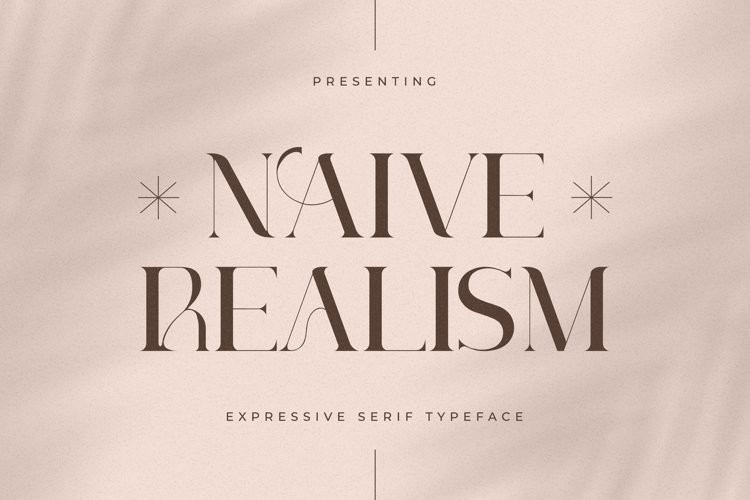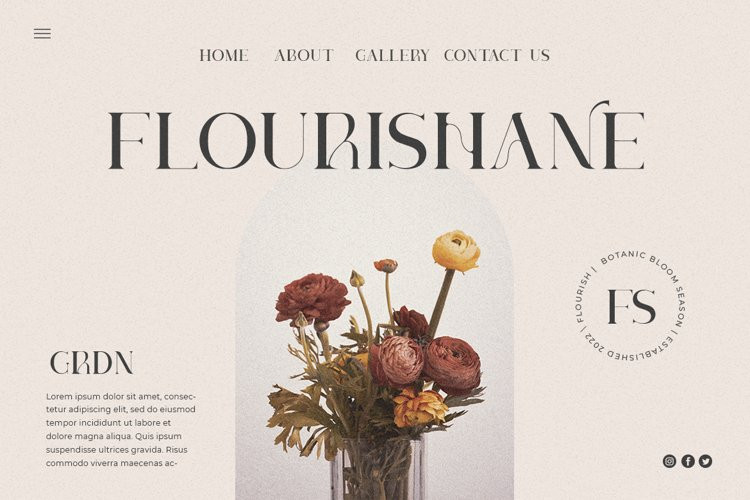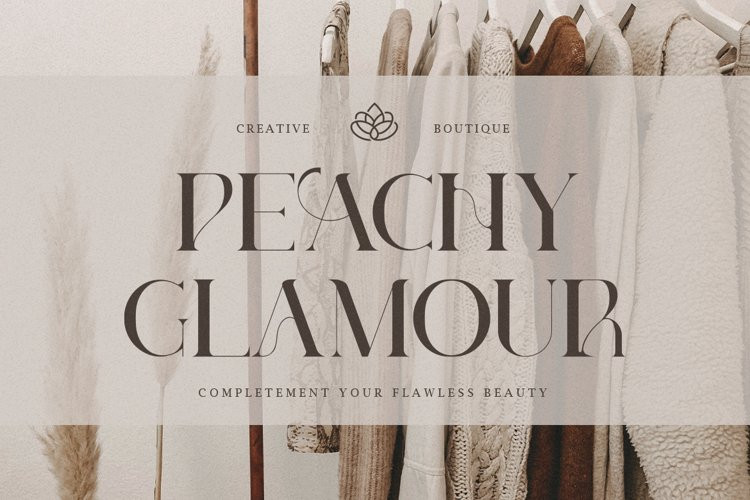
Naive Realism Font
Naive Realism FontNaive Realism is an expressive serif font.
This serif font will be the ideal choice for any cool project or great design you wish to develop.